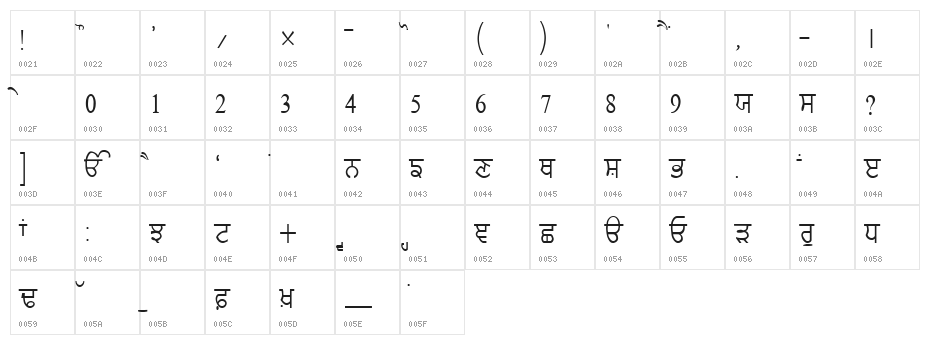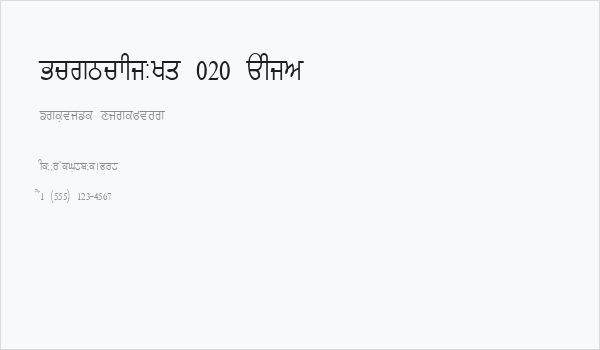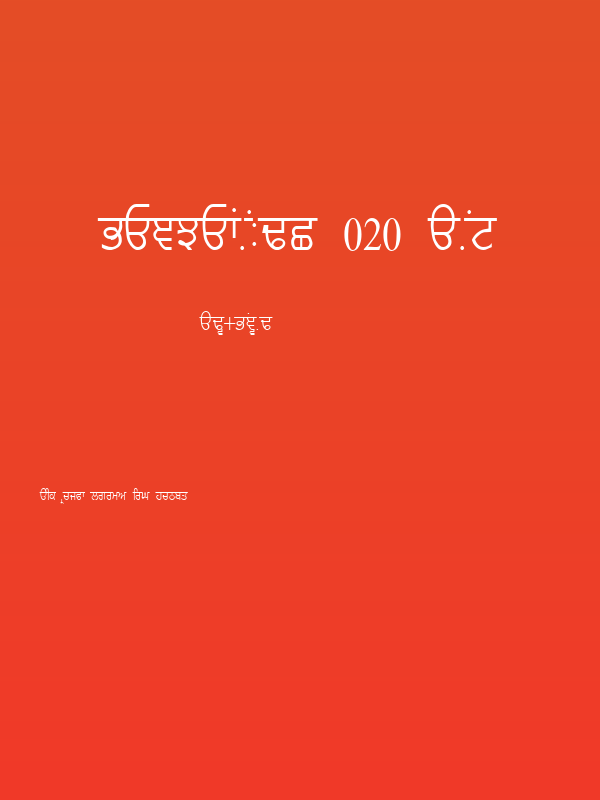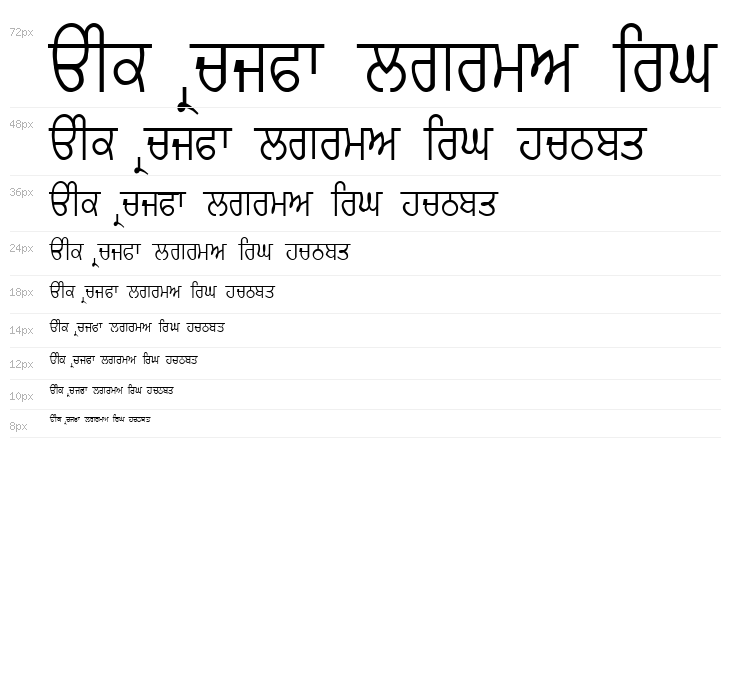
GurmukhiLys 020 Thin Font
GurmukhiLys 020 Thin Description
This font features a clean and elegant design, characterized by its thin strokes and high legibility. The characters are well-defined, with a consistent stroke width that gives the font a modern and sophisticated appearance. The numerals are clear and easy to read, making them suitable for various applications. The special characters are distinct and maintain the overall aesthetic of the font. The spacing between characters is balanced, ensuring readability without compromising style.